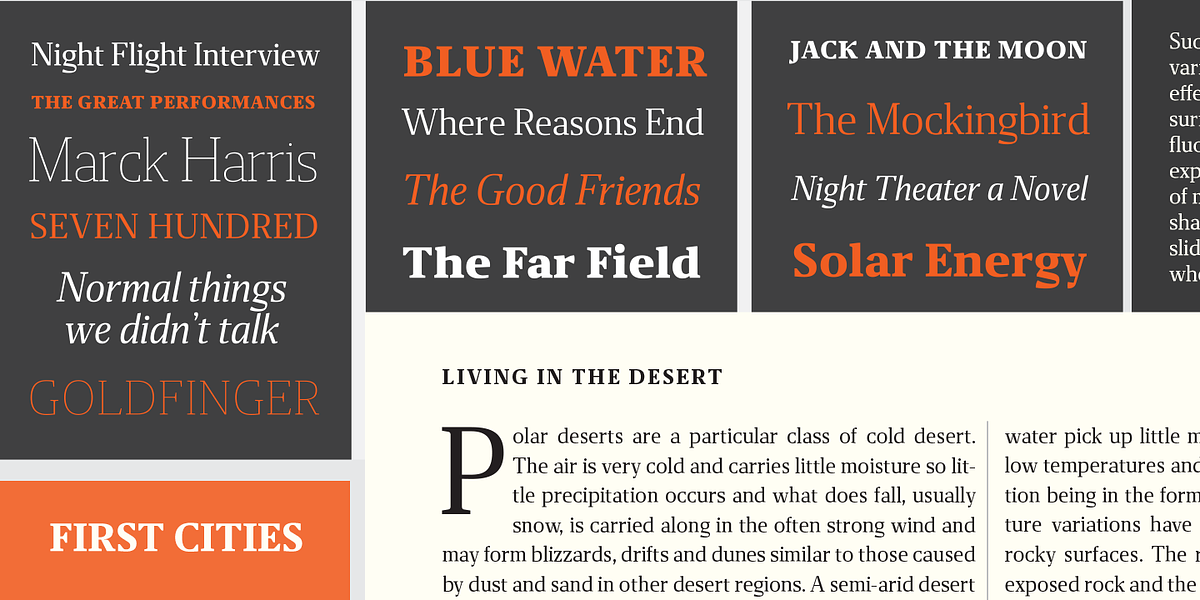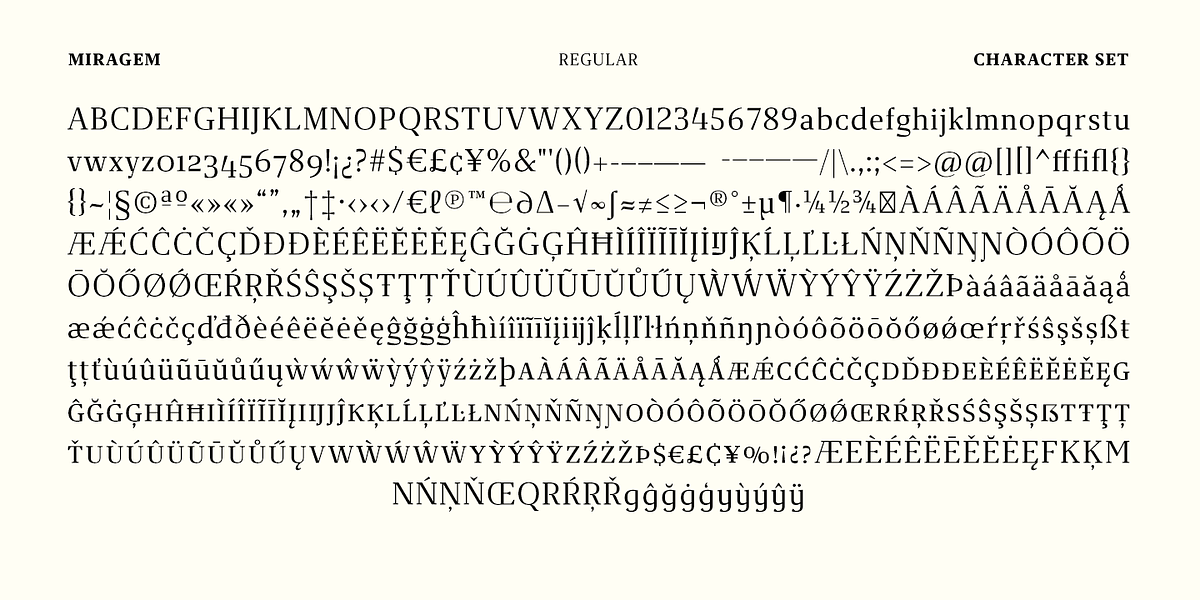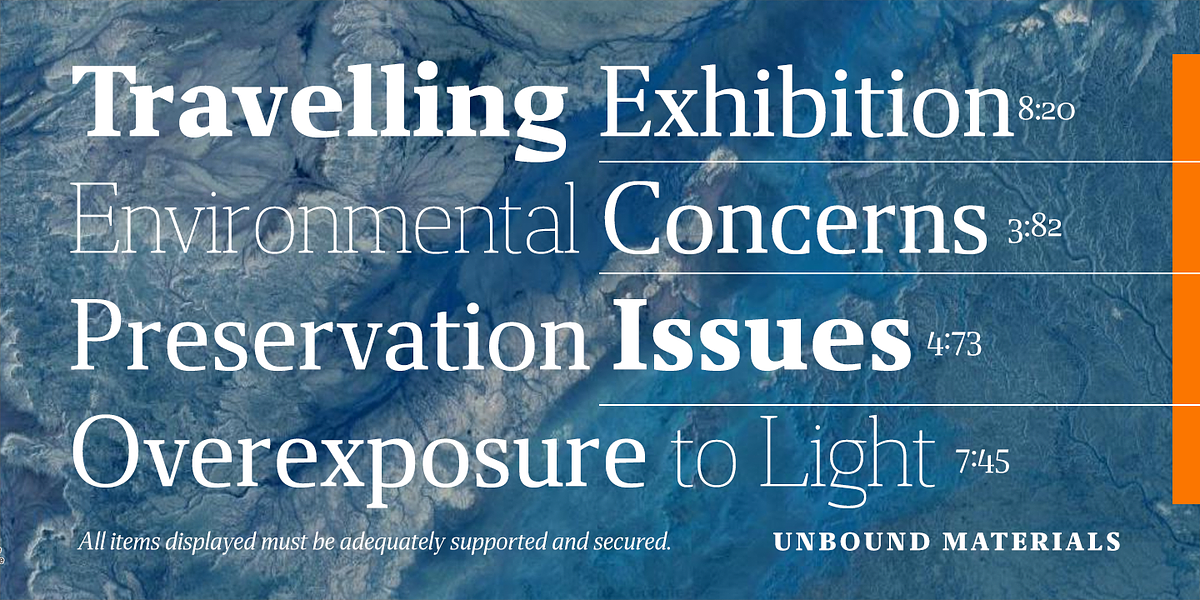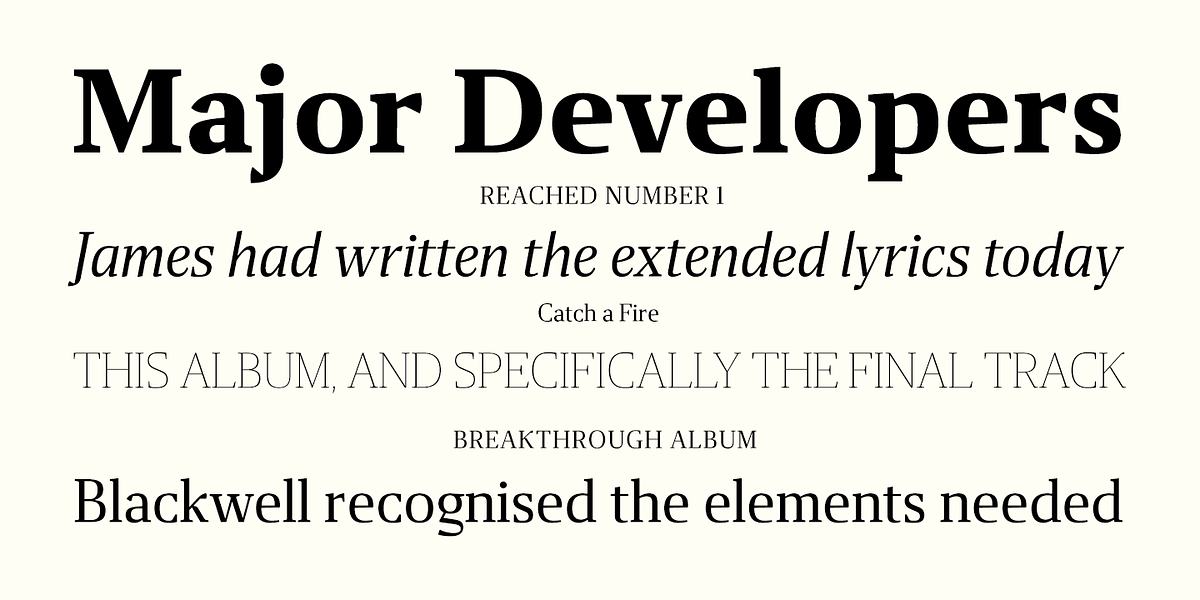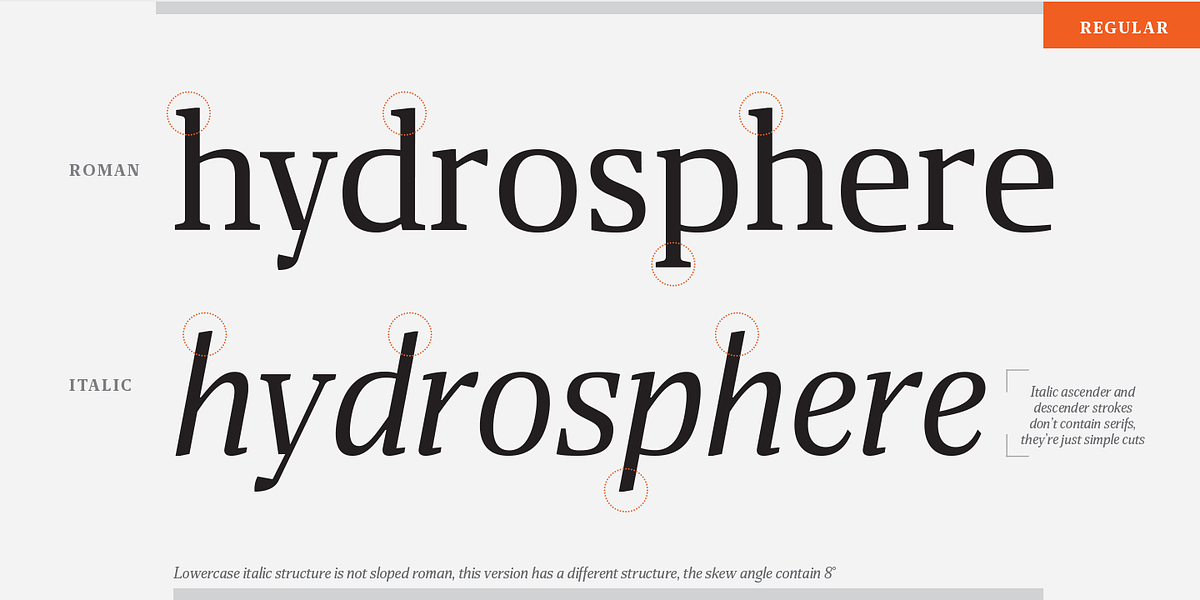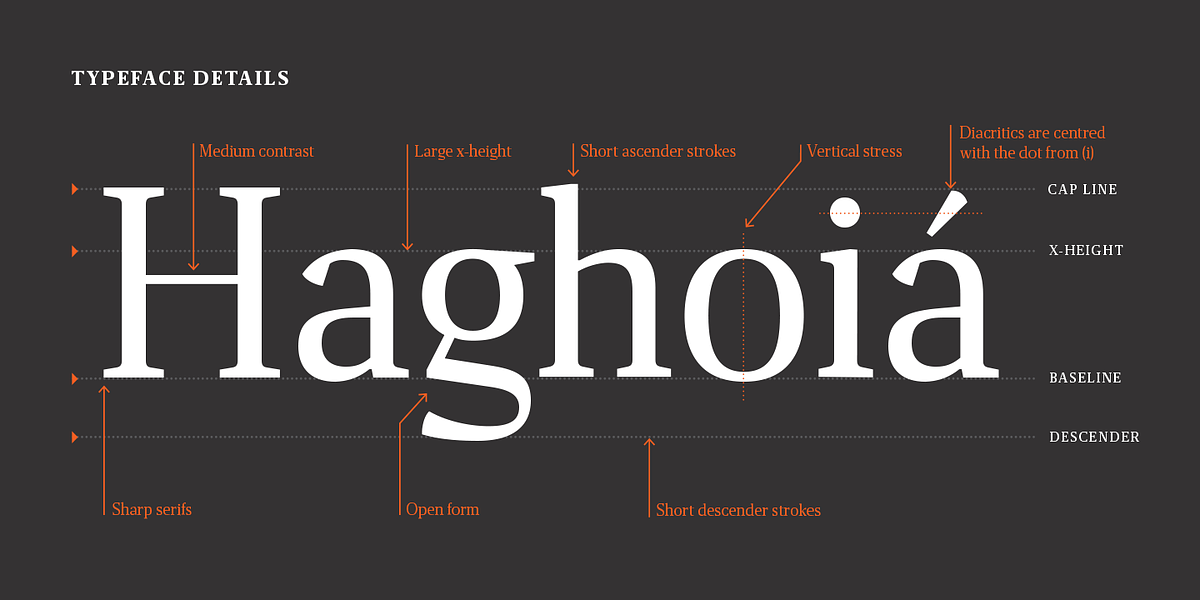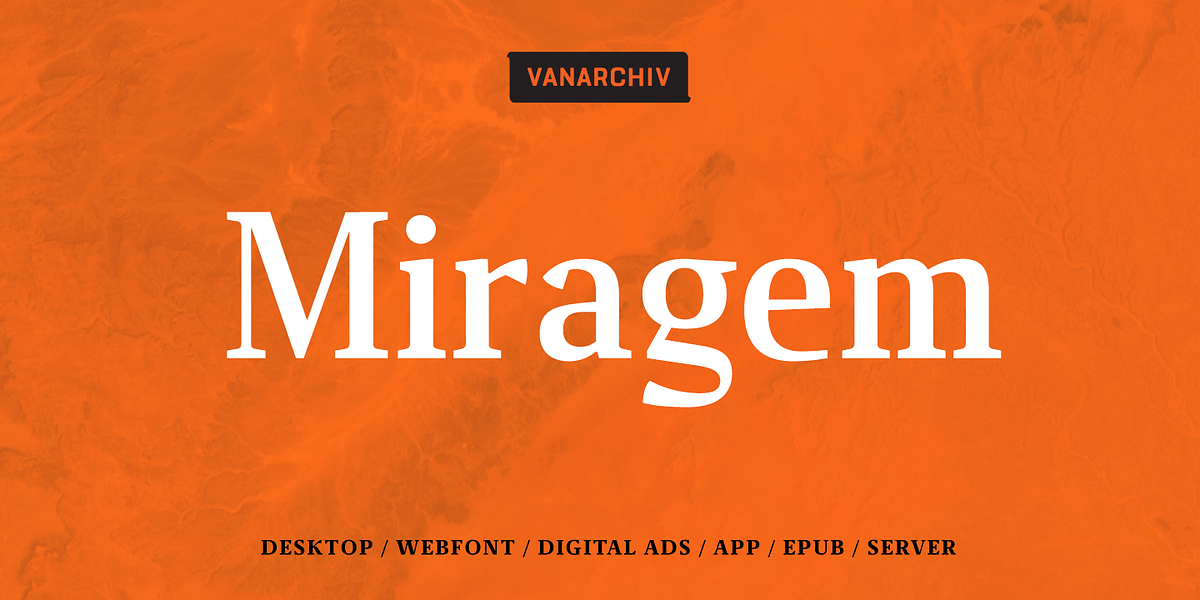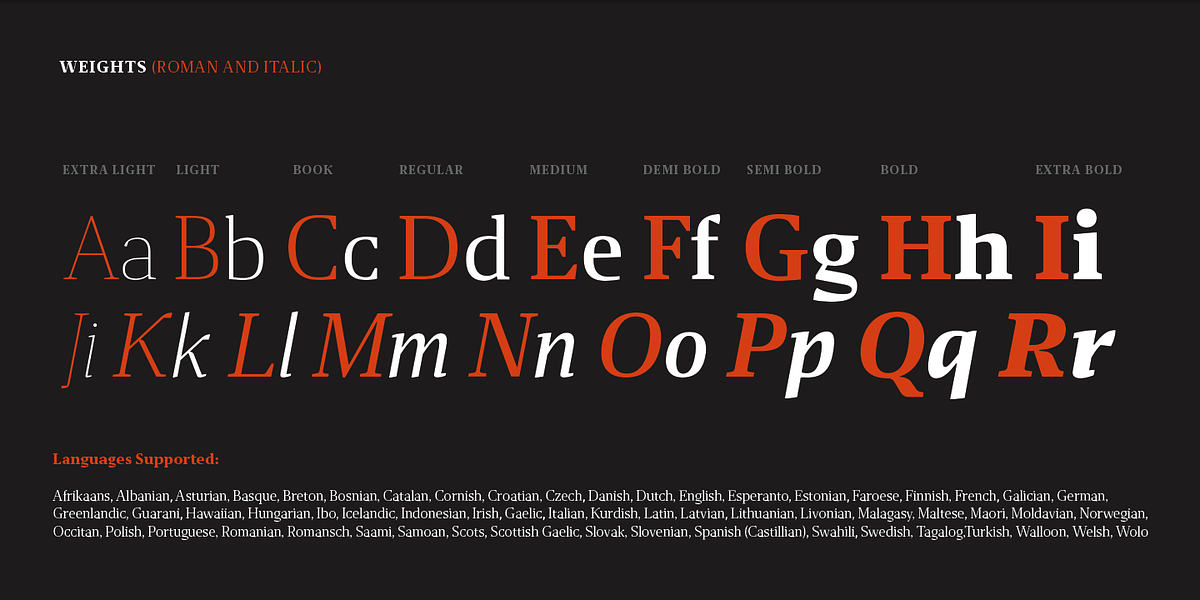
Miragem
This transitional serif typeface prioritizes simplicity and neutrality for body text applications. It features short descenders and a large x-height for readability. A distinctive open loop in the lowercase 'g' adds personality. The italic characters have a unique structure, notably lacking serifs on their ascender and descender strokes. They are also slightly narrower and more condensed than the roman letterforms.